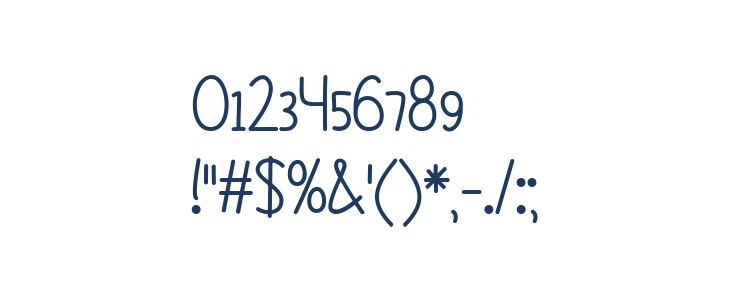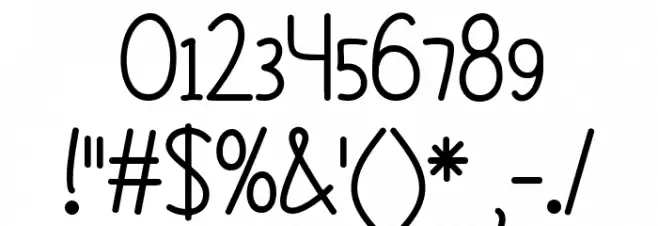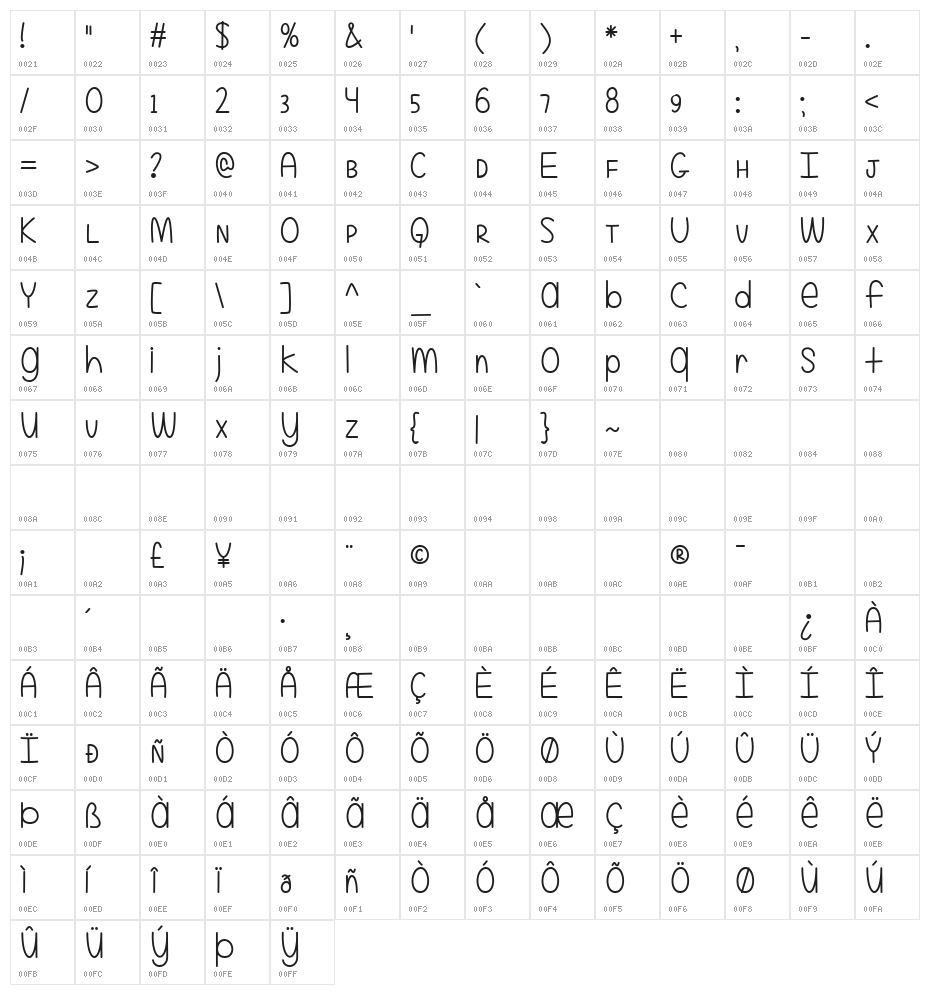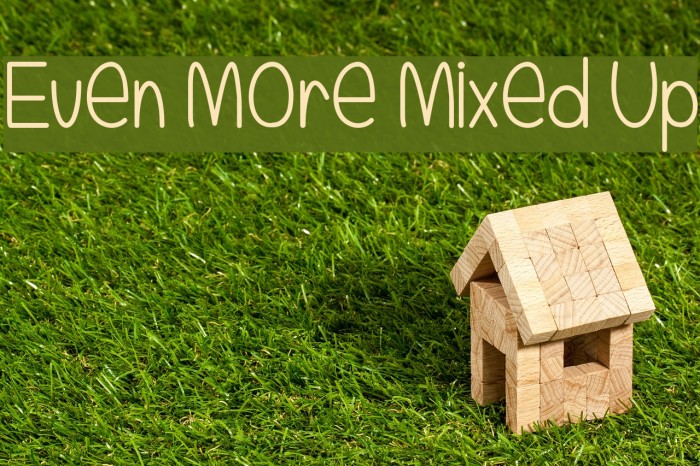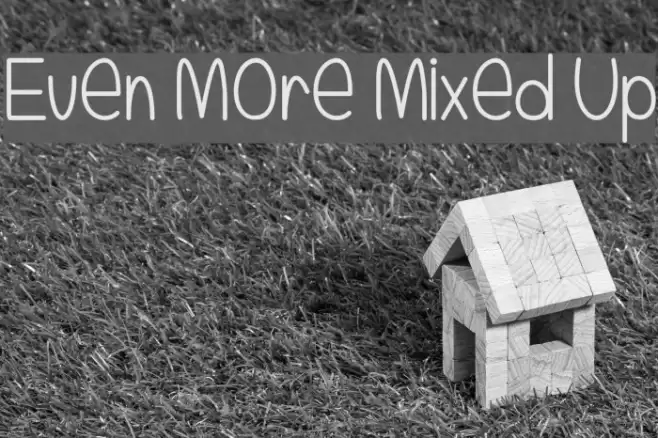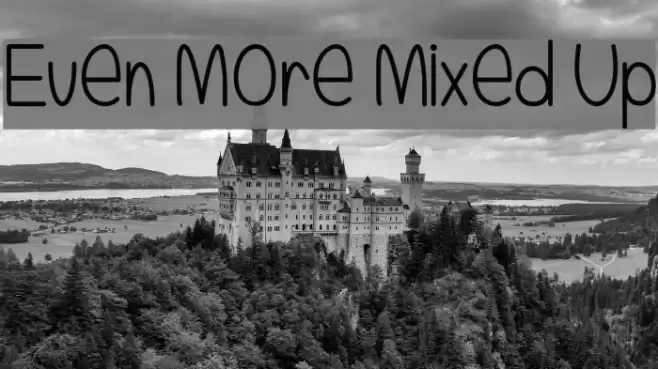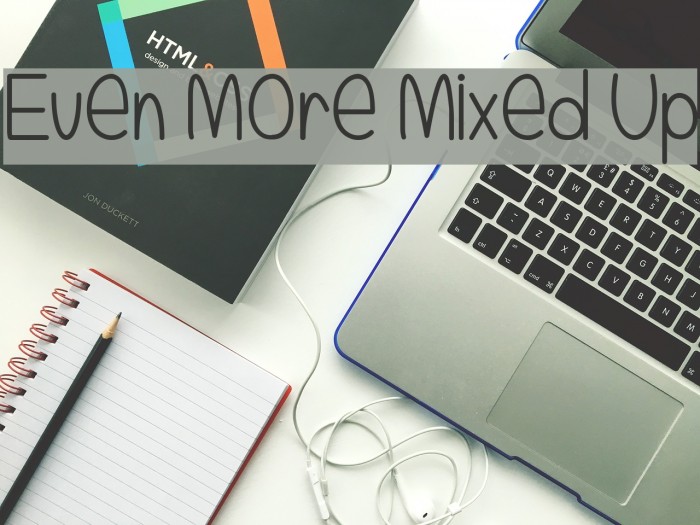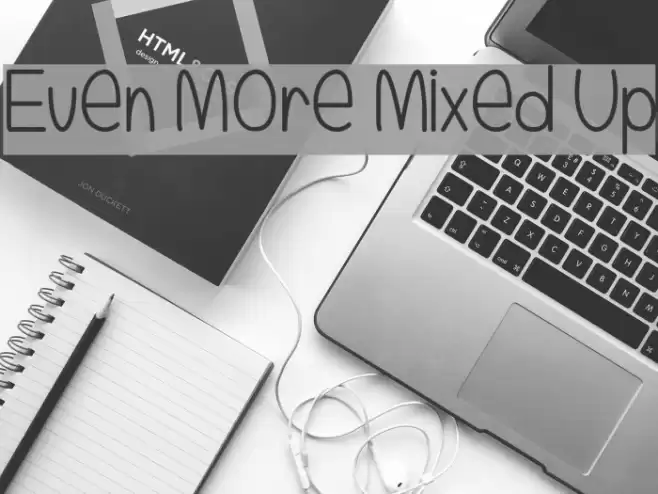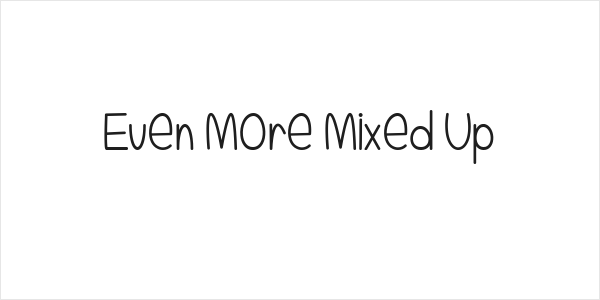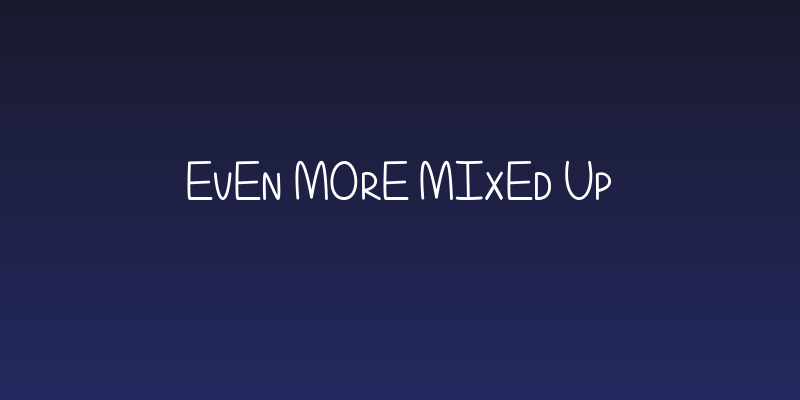
Even More Mixed Up Font
Even More Mixed Up Description
This playful and whimsical font features a handwritten style with a casual and friendly appearance. The characters are slightly irregular, giving it a unique and personal touch. The strokes are consistent in width, providing a uniform look across all characters. The font includes both uppercase and lowercase letters, numbers, and a variety of special characters. Its rounded edges and smooth curves contribute to its approachable and informal vibe, making it suitable for projects that aim to convey warmth and creativity.
| Proposed Projects | Ideal for children's books, greeting cards, casual invitations, and playful branding projects. |